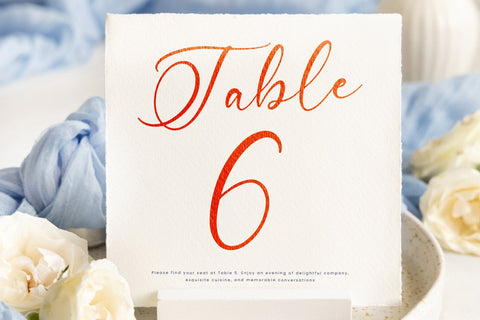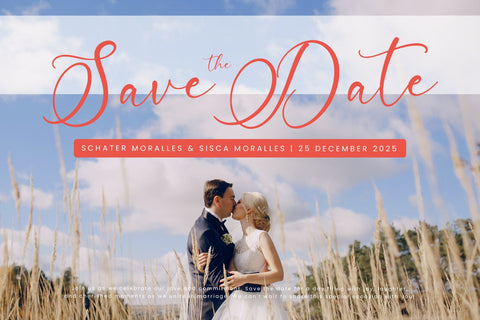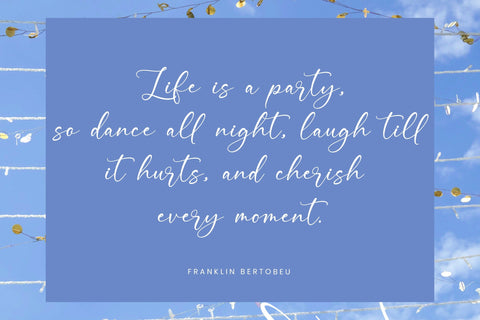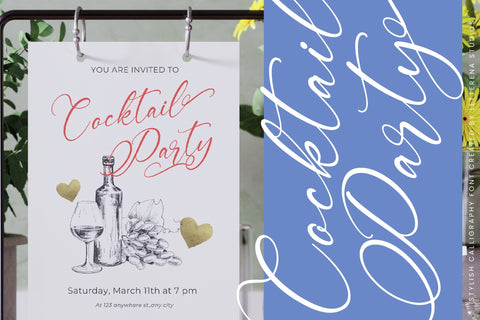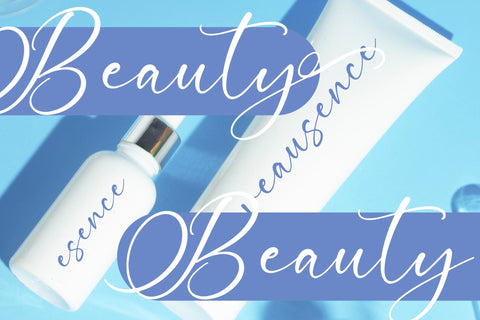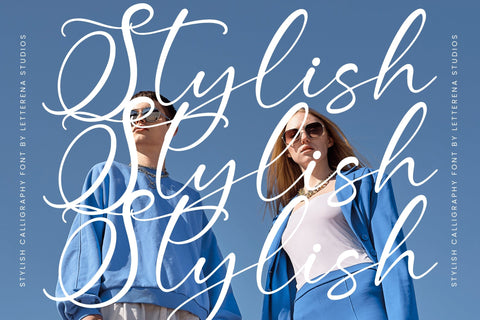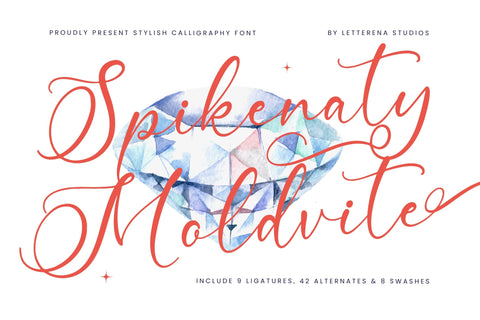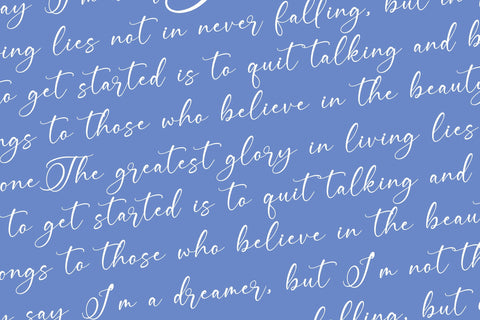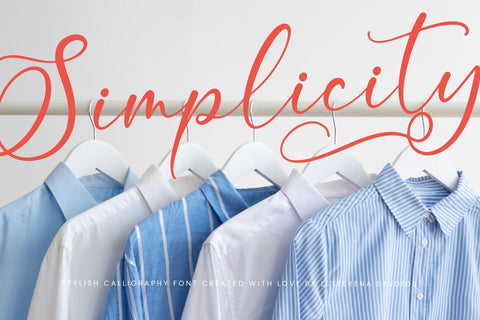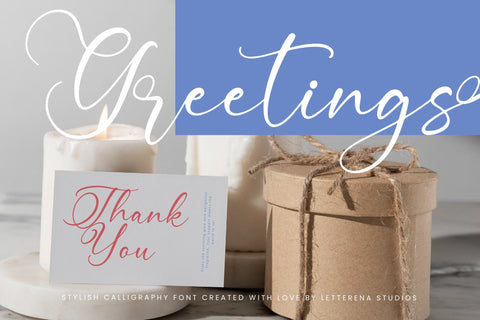
Spikenaty Moldvite - Stylish Calligraphy Font
Spikenaty Moldvite - Stylish Calligraphy Font , from Letterena, is a Luxury Script font, suitable for any projects such as: logos, branding projects, homeware designs, product packaging, mugs, quotes, posters, shopping bags, t-shirts, book covers, name card, invitation cards, greeting cards, label, photography, watermark, special events, and all your other luxury and beautiful projects that need a Luxury Script taste.